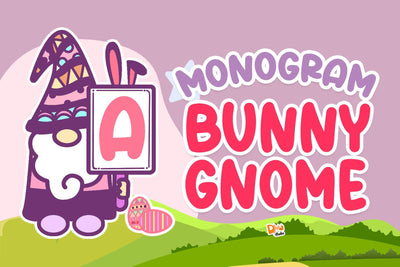
Monogram Bunny Gnome
Introducing, our new product : Monogram Bunny Gnome
Cute and adorable gnome monogram font with easter theme, great to celebrate your easter days!
- All in caps
- Numeric